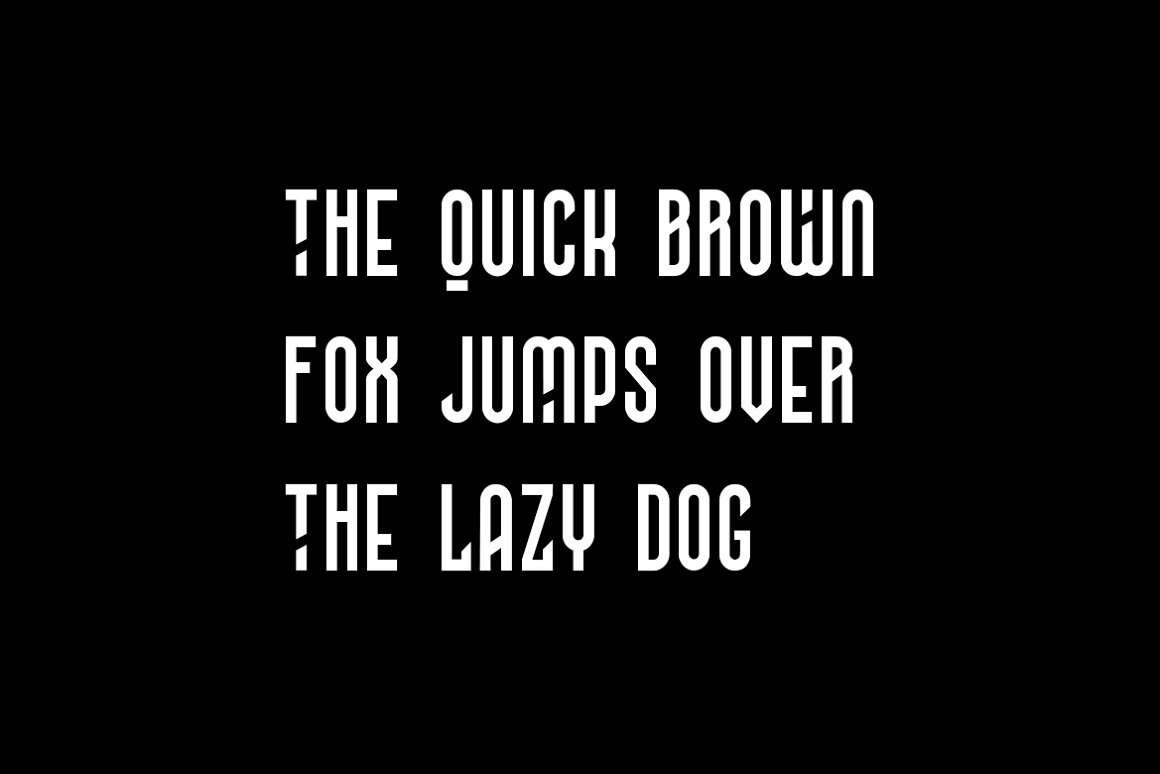
Nomad is a unique display typeface inspired by exploration, creativity, and unconventional design expression.
Nomad is a unique display typeface inspired by exploration, creativity, and unconventional design expression. Featuring distinctive letterforms and a strong visual identity, it brings an adventurous and artistic feeling to typography. Designed for posters, branding, logos, packaging, editorial projects, and expressive creative work.